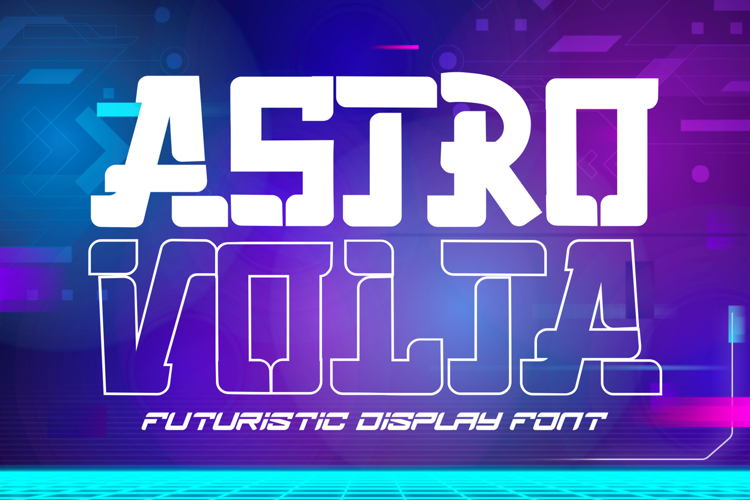
Astro Volta - Futuristic Display Font
Astro Volta is a cutting-edge futuristic display font that electrifies your designs with sleek, modern energy. Inspired by the limitless possibilities of space and technology, this font delivers a striking, high-tech aesthetic perfect for forward-thinking projects.
🚀 Futuristic Appeal: Astro Volta embodies the essence of the future with its clean lines, sharp angles, and dynamic form. Whether you're designing for tech brands, sci-fi themes, or any project that needs a futuristic touch, this font makes a bold, modern statement.
✨ Versatile and Impactful: Designed to be versatile yet impactful, Astro Volta works seamlessly across various mediums—from digital interfaces to print. Its strong, legible characters ensure your message stands out with clarity and style.
⚡ Innovative Design: With its unique design elements, Astro Volta pushes the boundaries of traditional typography, offering a fresh and innovative look that’s sure to captivate your audience.
Astro Volta is more than just a font—it’s a journey into the future of design. Perfect for creating visuals that are bold, dynamic, and truly out of this world.